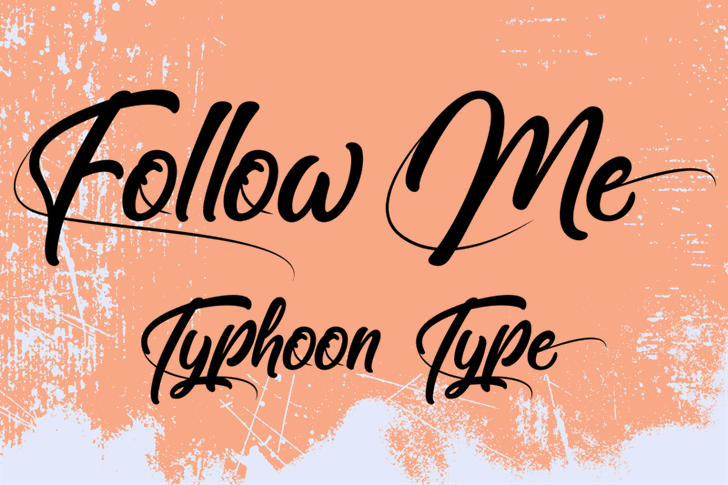
Free Follow Me Font
Download and enjoy this free follow me font. Cool typeface to showcase your designs in a modern way. Download this free font from the original source of Font Space. Easily amaze your audience with this fancy font and make your graphic designs pop up from the crowd.